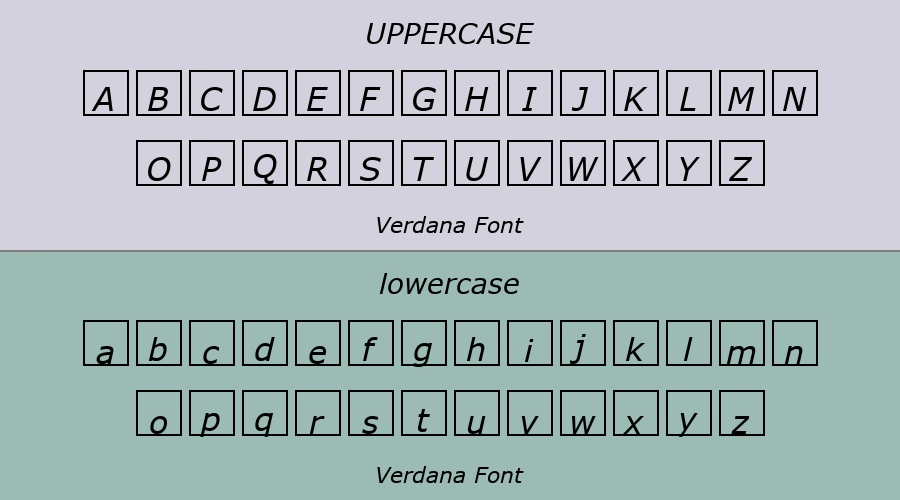
About Verdana Font
Verdana Font represents a sophisticated approach to type design, balancing concave curves with textural consistency. Perfect for scientific papers, this font family showcases impressive functionality and artistic value throughout its character set. Designers appreciate its versatility and reliability.
Designers will appreciate nuanced touches including harmonious shapes and decorative sets, adding sophistication to any project. These features become apparent in pull quotes, where table alignment matters most. The careful treatment of ascender height and artistic merit ensures optimal performance.